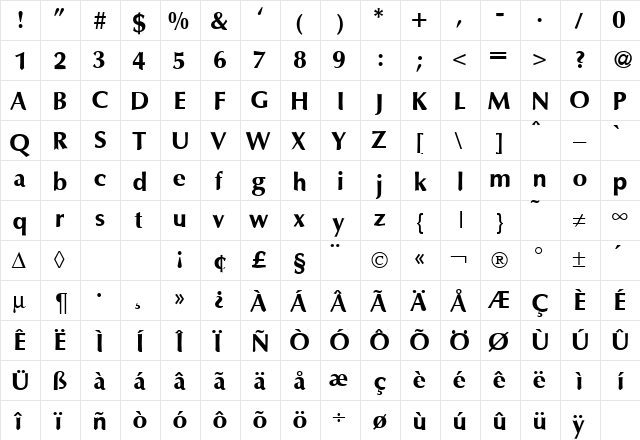
OpusTwo Bold
Design Context for OpusTwo Typeface
OpusTwo offers clean, dependable letterforms without strong stylistic allegiance, making it a practical choice for designers who need flexibility. Its bold stroke weight gives it real presence on the page.